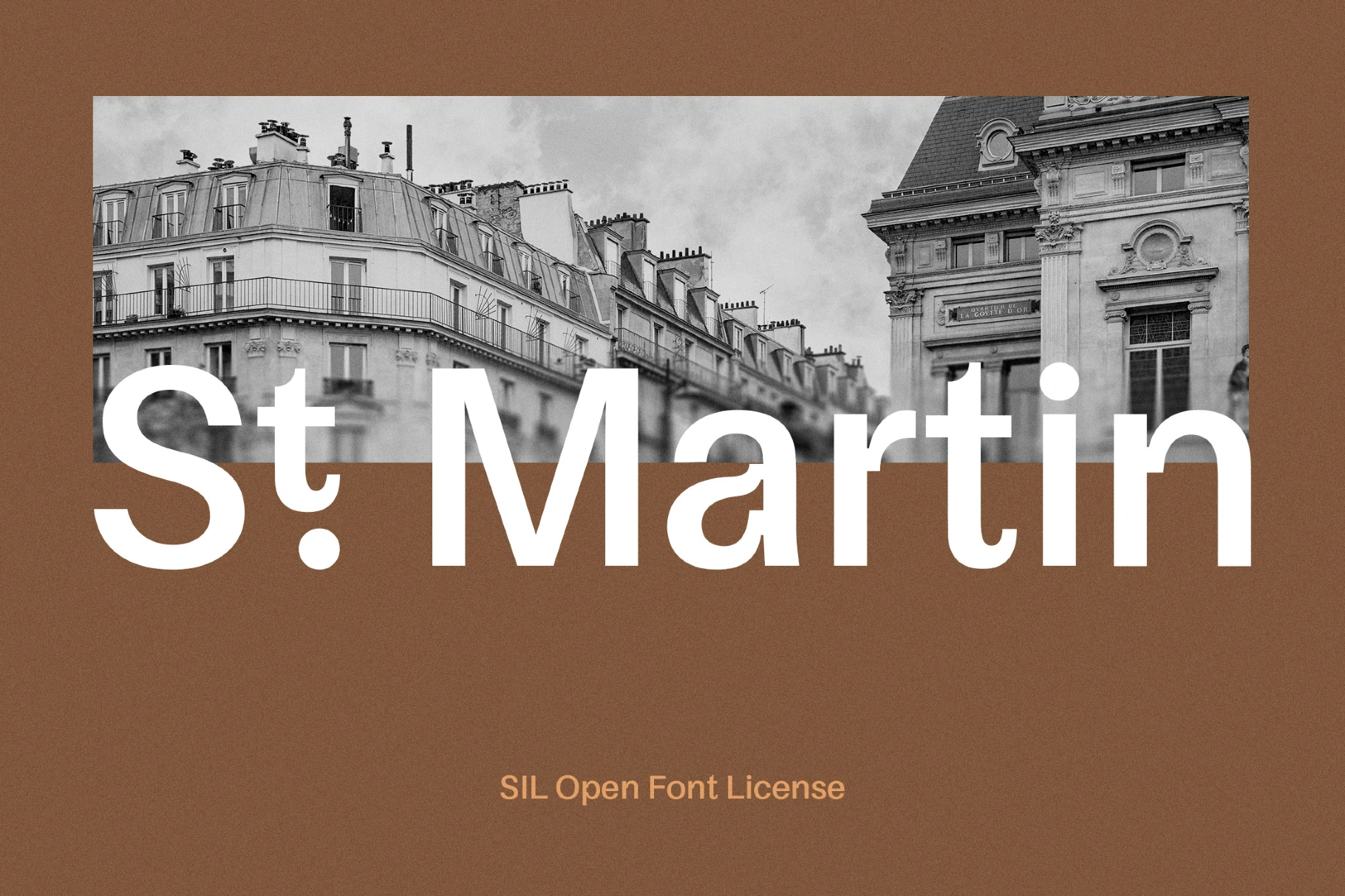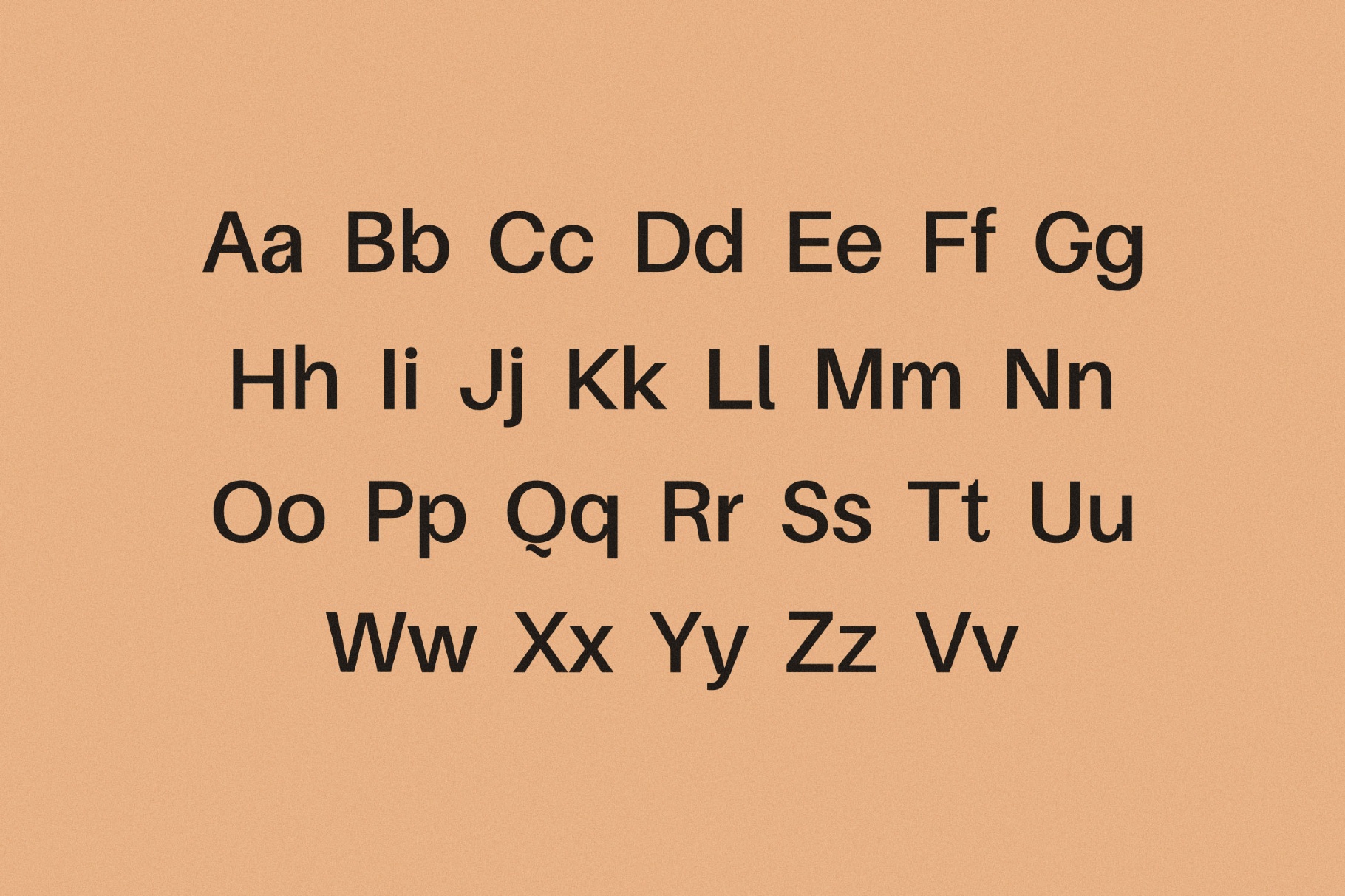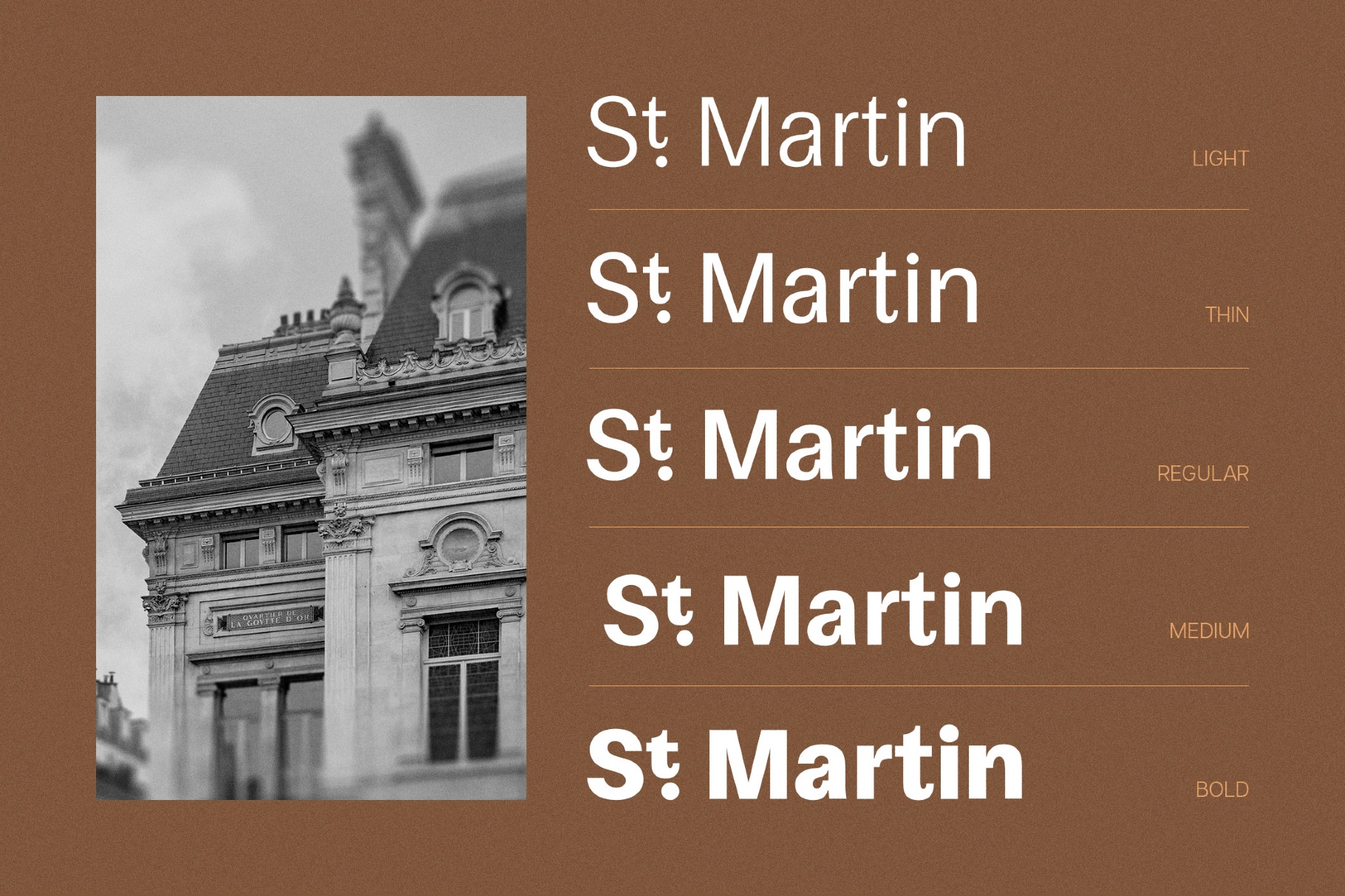
St. Martin Typeface
St. Martin typeface revives a quirky 19th-century Parisian sans with crisp stencil-like breaks and narrow grotesque proportions that fit well for jobbing poster type and experimental gallery signage. Its striking rhythm suits identity systems and logotypes, editorial mastheads, poster headlines, magazine covers, wayfinding signage, cultural-program titles, exhibition graphics, packaging, and web or social media titles.
- Five styles.
- Multilingual support across extended Latin scripts.
- Ligatures.